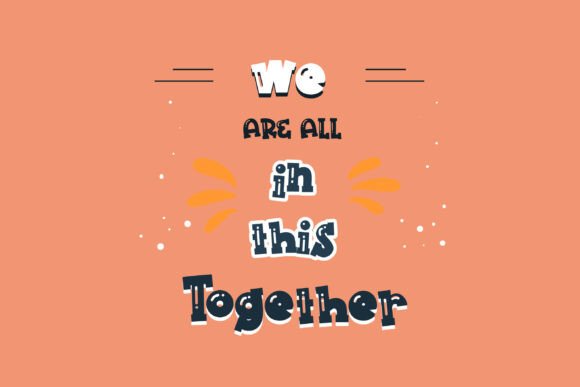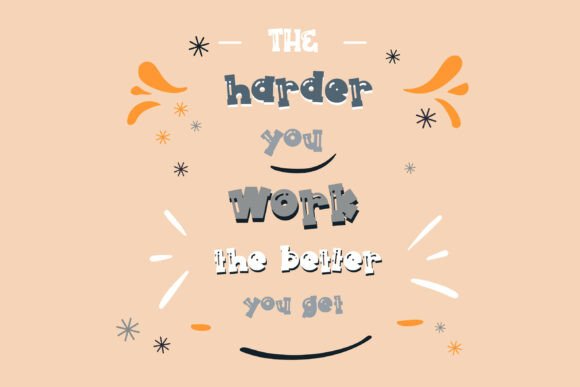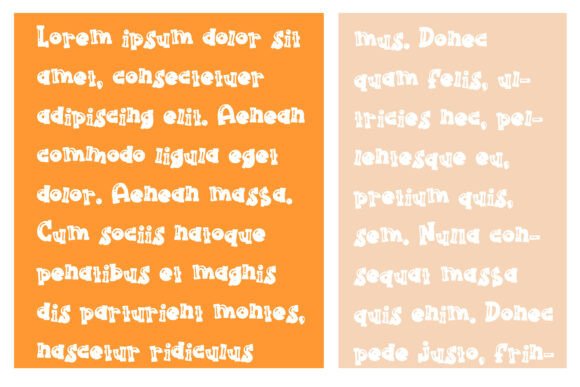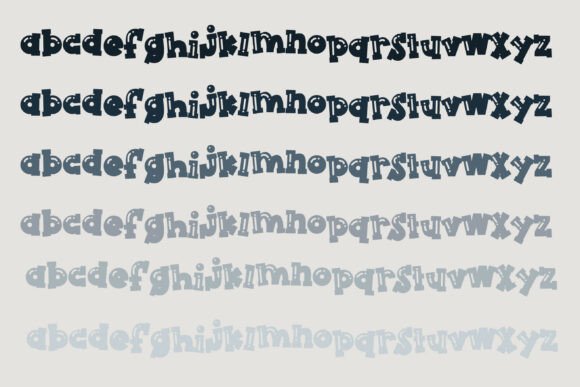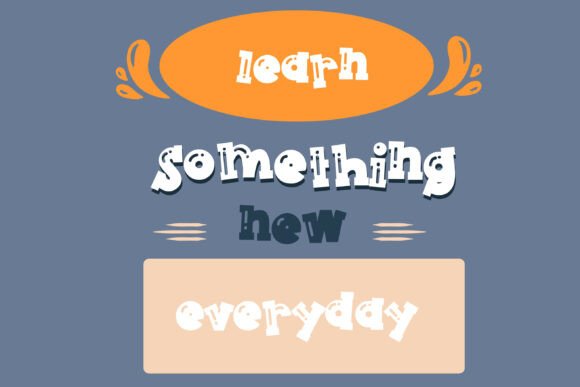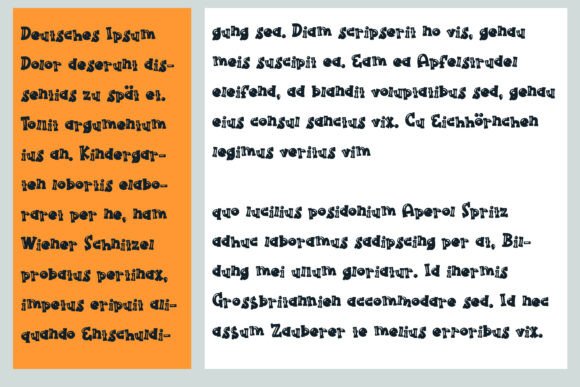
Introduction to Pooble Font Font
Fonts play a crucial role in design, and the Pooble Font font is a typeface that brings both character and versatility to any project. Whether you’re working on a branding project, a website, or a print design, the Pooble Font font offers a unique style that can elevate your work.
Make a bold statement with Pooble, a delightful display typeface that captures a “bubbly-and-structured” soul.
This font features massive, boxy letterforms characterized by rhythmic “glossy” circular highlights and a charming, hand-written print aesthetic With its thick outlines and high-contrast playful energy, Pooble is the premier choice for independent toy shop branding, colorful stationery design, youth-oriented cosmetic logos, and high-impact “pop-and-shine” social media headers.
Key Features of Pooble Font Font
Why Choose Pooble Font Font?
The Pooble Font font is more than just a typeface – it’s a design tool that helps you communicate your message with style and clarity. Its unique character set and versatile design make it suitable for a wide range of applications, from elegant invitations to bold headlines.
With its carefully crafted letterforms and balanced proportions, the Pooble Font font ensures readability and visual appeal across all mediums.
What makes Pooble Font font special?
The Pooble Font font stands out with its unique design, exceptional readability, and versatility across various design applications.